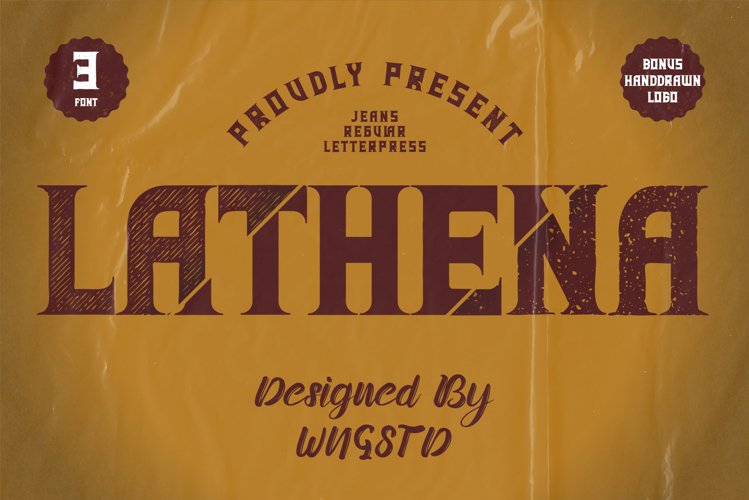
Lathena - is regular, letterpress, and jeans vintage font. Lathena : perfectly suited for traditional media and the web. great for the logo, banner, poster crafter, and graphic artists. compatible with all tools. its playfulness makes it great for a creative project., be inspirational wall poster, or for communicating your brand.